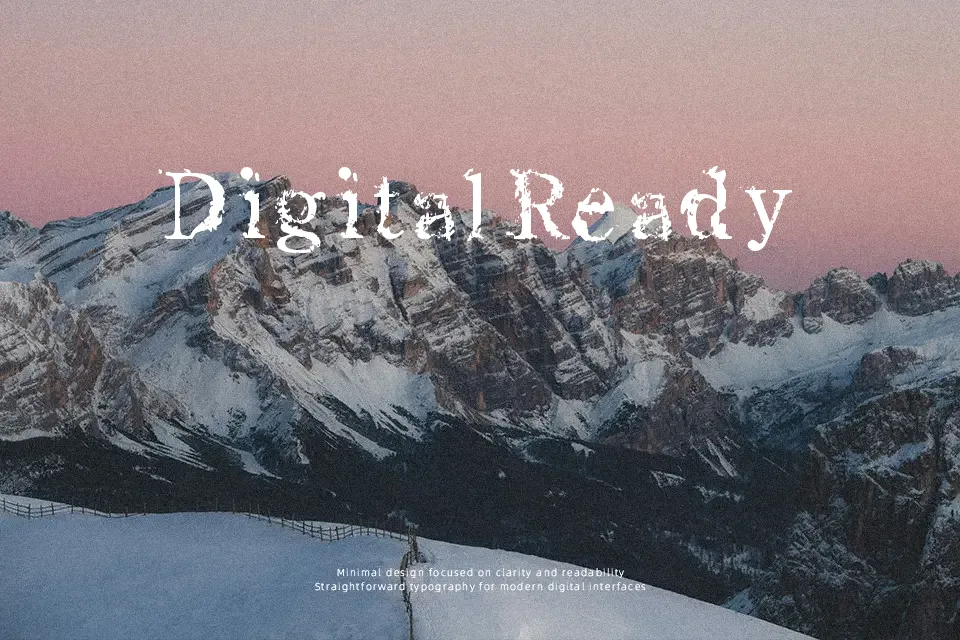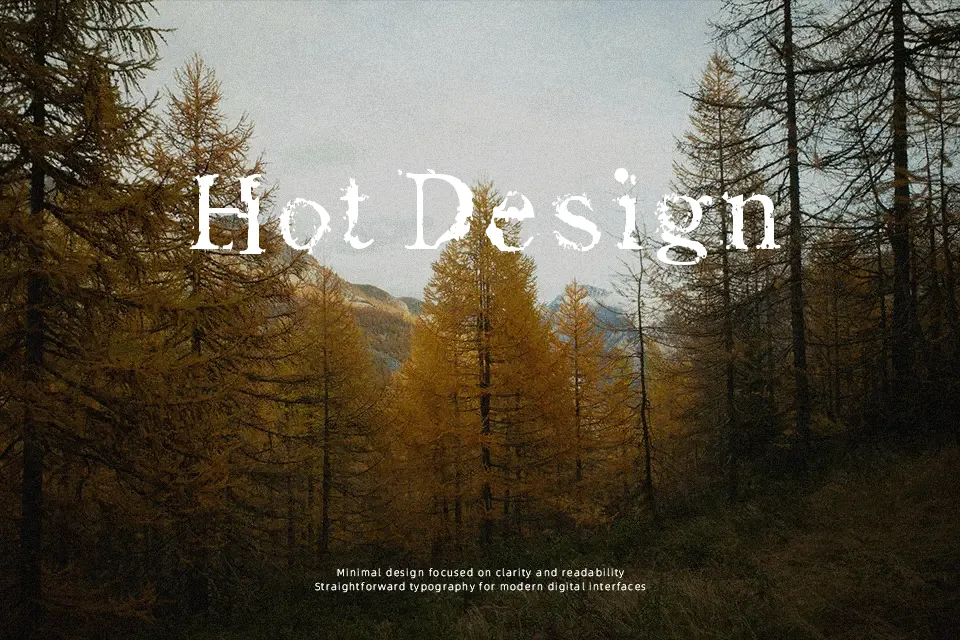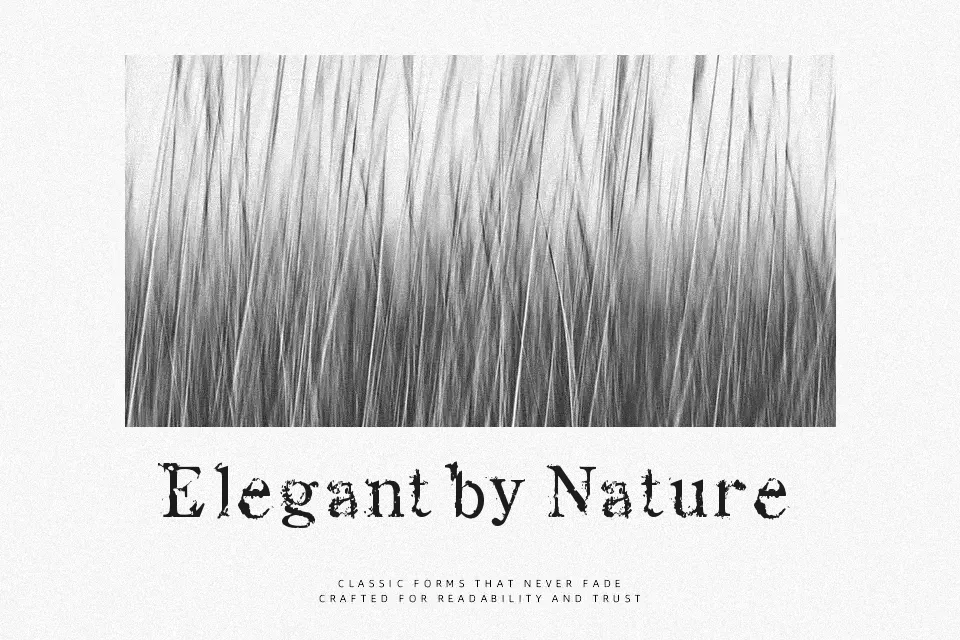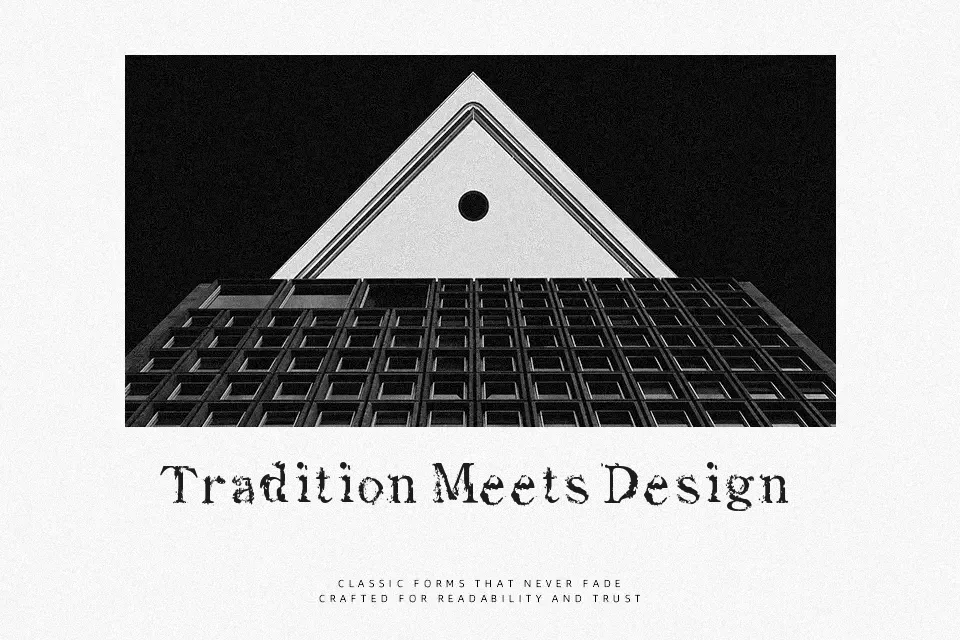
Sea Dreams Font
Designed by Heather T.
Sea Dreams Font exhibits heavily eroded strokes, irregular edge textures, and an organic weathered silhouette. Moderate stroke weight combines with generous internal character spacing, allowing each distressed glyph to retain its identity without blending into adjacent characters. Broad proportions give the uppercase letterforms a sturdy presence on printed surfaces. The typeface performs best in oversized display applications such as grunge album covers, event banners, and artisanal branding. However, the textured disintegration significantly degrades legibility at smaller point sizes, making the letterforms unsuitable for continuous paragraph text or dense editorial layouts. In prominent headline settings, the raw aesthetic provides distinct visual impact without sacrificing immediate title recognition.
Best For: music festival posters, grunge album covers, vintage apparel graphics, craft beverage packaging
Not Ideal For: long paragraph text, mobile interface design, legal documents, dense book layouts
Perfect for branding, headline, and music, with a creative and decorative style.